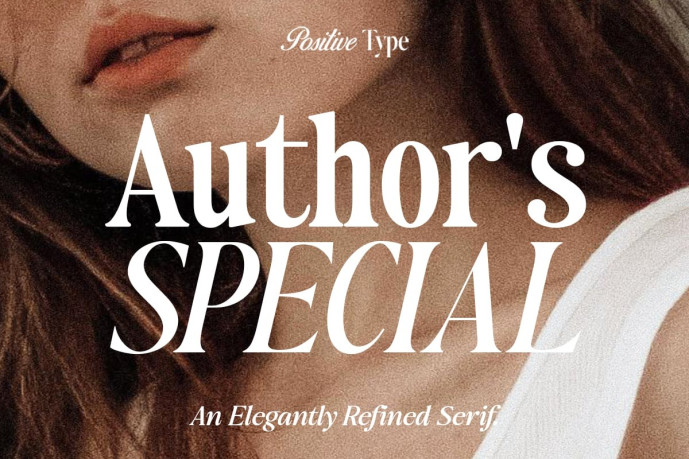
An Elegantly Refined Serif Typeface
Author’s Special is a sophisticated serif typeface designed to bring timeless elegance and refined character to every project. Featuring graceful curves, high-contrast letterforms, and beautifully balanced proportions, this typeface effortlessly combines classic inspiration with a modern editorial aesthetic.
Whether you’re creating luxury branding, fashion editorials, wedding stationery, magazine layouts, premium packaging, or elegant social media graphics, Author’s Special delivers a polished and memorable typographic presence.
With four carefully crafted styles, this family offers the versatility to create harmonious typography while maintaining a consistent visual identity. Use the Regular style for refined body text, Italic for expressive emphasis, Contrast for dramatic headlines, and Contrast Italic for sophisticated editorial compositions.